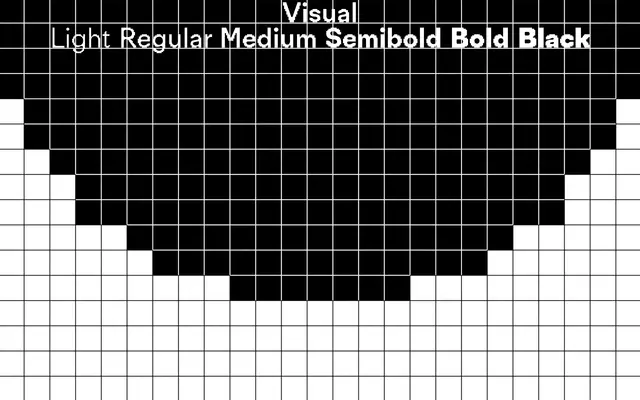
Visual
A geometric sans in six weights with a technical character, suited to data-driven editorial work and interface design with satellite and cartography overtones.
Six weights from Light to Black cover a wide range of applications, from large display settings to extended body text. The OpenType feature set includes fractions, ordinals, superscript, subscript, scientific inferiors and a stylistic set, suggesting intent for scientific and technical publishing. Sample copy themed around pixels, satellite imagery and cartographic projections reinforces its positioning in technical and data-facing design work.
Visual is a geometric sans-serif with a technical, data-driven aesthetic. Its clean, modular letterforms and strong performance at both display and text sizes place it firmly in the geometric sans tradition.